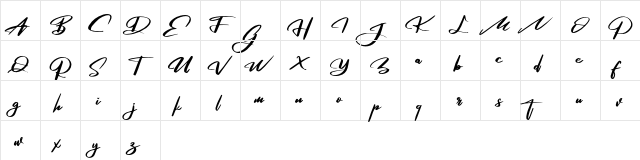
Rosega FREE Regular
Design Context for Rosega FREE Typeface
Rosega FREE is a composed and adaptable typeface that performs quietly and consistently across a wide range of design contexts.